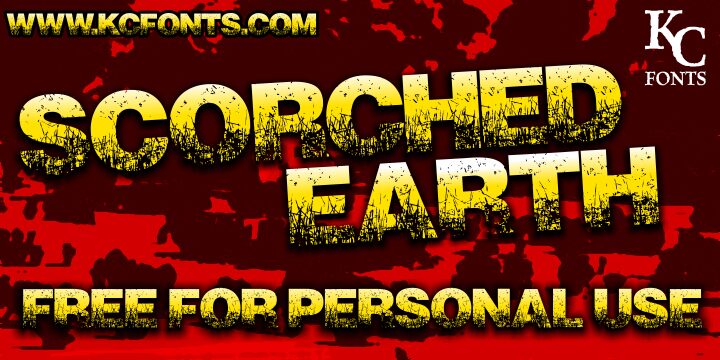
Scorched Earth, created by Kevin Christopher in 2012, is a free eroded display font with massive, tightly packed capitals and an industrial silhouette. Damage gathers heavily along the lower edges.
Posters are its strongest medium, especially for horror films, extreme sports events, and heavy music promotions where the scratched texture can become part of the artwork. It also suits game packaging and merchandise built around ruined landscapes or scorched terrain. The lettering points toward post-apocalyptic, survival, and disaster themes.